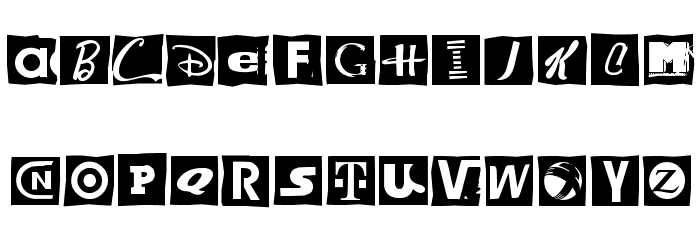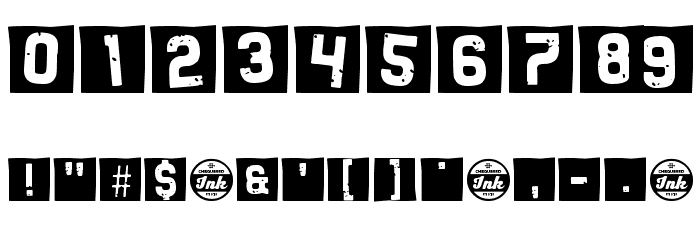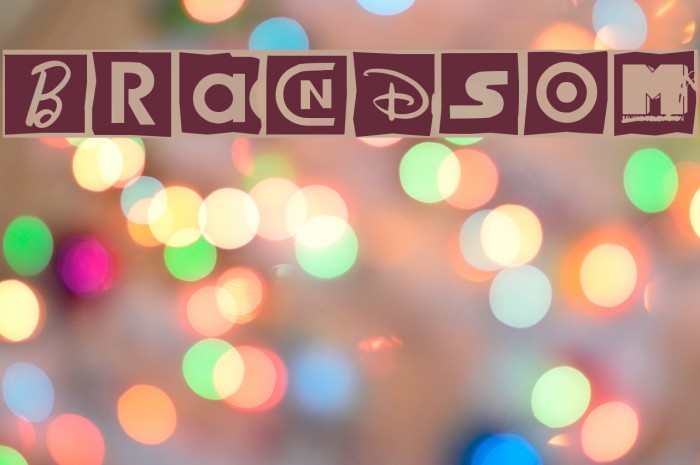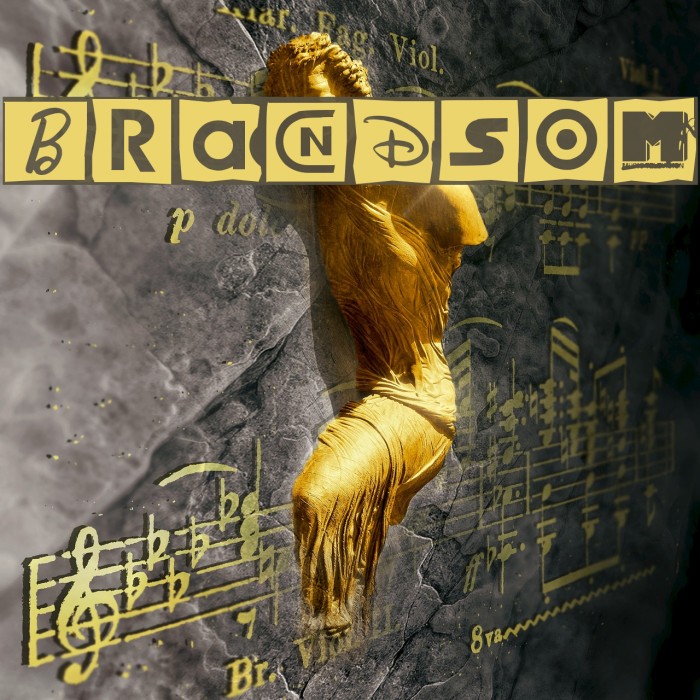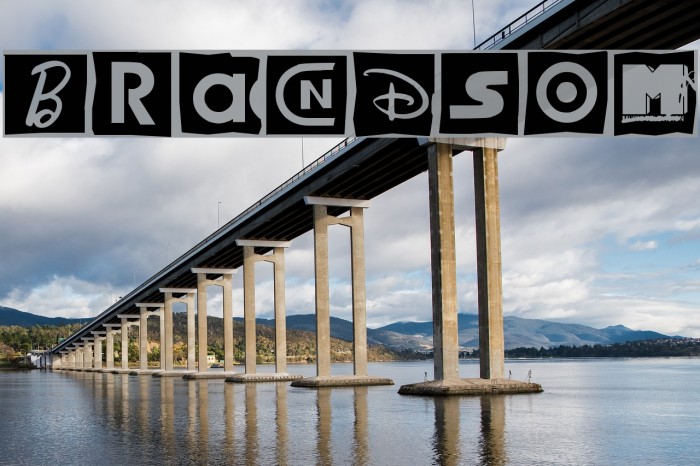
Brandsom Font
This font is a creative and eclectic mix of styles, each character appearing as if it has been cut from different brand logos or designs. The letters are bold and distinct, with each one housed in a black square, giving them a collage-like appearance. The uppercase and lowercase letters share the same unique style, with some characters featuring iconic design elements reminiscent of well-known brands. The numbers and special characters continue this theme, each with its own distinctive flair. This font is perfect for projects that require a playful, eye-catching look, such as posters, advertisements, or themed events.
A bold, eclectic font with characters styled like brand logos.
- Proposed Projects: Ideal for posters, advertisements, themed events, and creative branding projects.